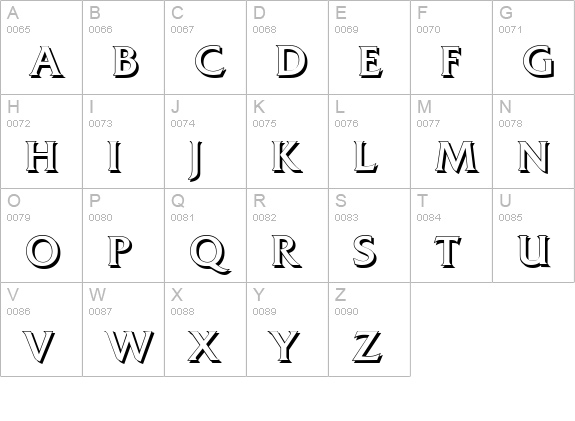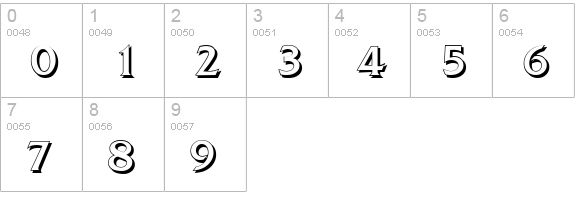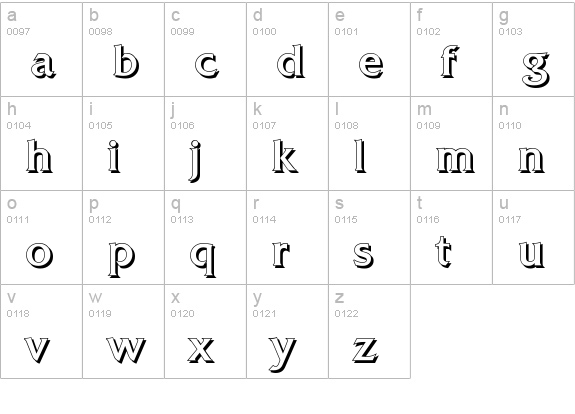
QuadratShadow-Regular Font Details
QuadratShadow-Regular is the standard, neutral variant in the QuadratShadow typeface family \xE2\x80\x94 well suited to general body text, paragraphs, and standard typographic work.
QuadratShadow-Regular is a sophisticated and stylish typeface that exudes modernity and elegance. This font features clean lines and sharp edges, giving it a contemporary and professional look. The shadow effect adds depth and dimension to each character, making it stand out on any design project. What makes QuadratShadow-Regular even more appealing is that it is available for free download at FontsMarket.com. This means that you can easily access this high-quality font without any cost, making it ideal for both personal and commercial use. Whether you're designing a logo, poster, or website, QuadratShadow-Regular will surely make your text pop and leave a lasting impression on your audience. Download it today and elevate your design projects with this exceptional font.